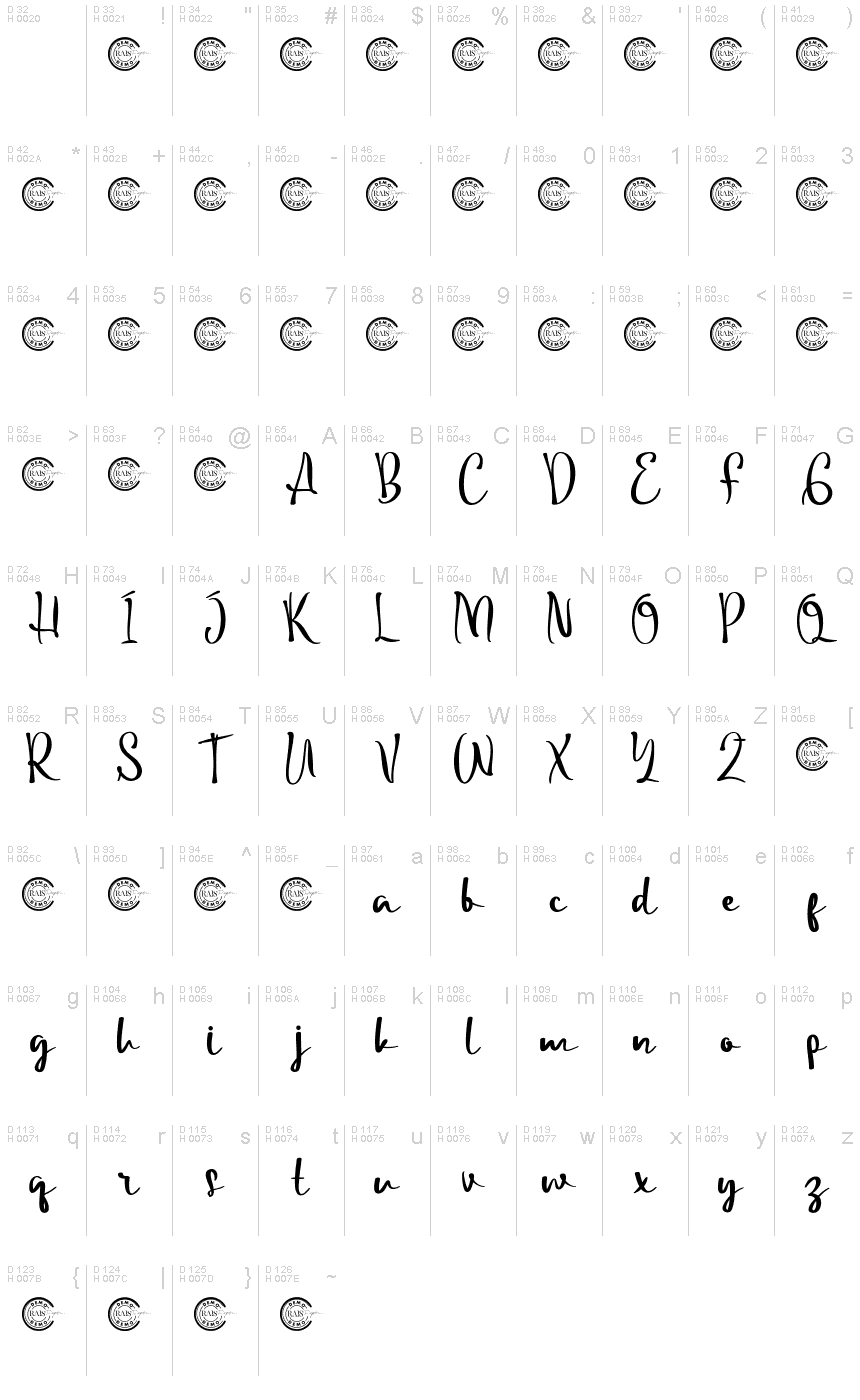
SmoothPerfectly Demo
Smooth Perfectly, a delightful handwritten font by RaisProject, adds a touch of elegance and grace to your creative endeavors. The semi-light weight of this font exudes a sense of subtlety and sophistication, making it ideal for projects that require a soft yet refined aesthetic.
Whether you're designing wedding invitations, crafting personalized logos, or creating whimsical social media posts, Smooth Perfectly effortlessly captures attention with its smooth curves and flawless letterforms.
Infuse your work with a dash of charm and make every project shine with this exquisite typeface.